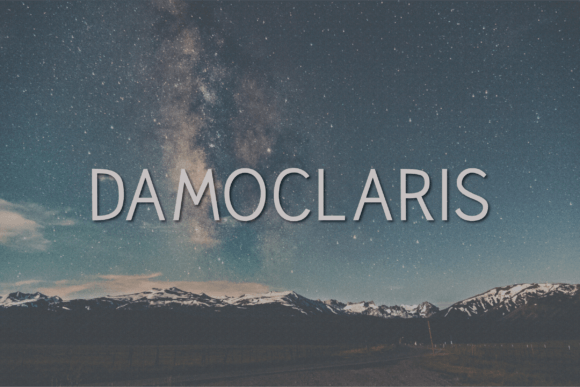
Unleash Your Creativity with Damoclaris Font: The Epitome of Contemporary Elegance
In the realm of typography, few fonts have managed to capture the essence of sophistication and style as effectively as Damoclaris. This sans serif typeface is a masterclass in modern elegance, boasting a streamlined package that comprises an array of upper-case characters, numerals from 0-9, and an extensive collection of punctuation symbols. Whether you’re a designer, artist, or simply someone who appreciates the art of typography, Damoclaris is a font that is sure to captivate and inspire.
Key Features of Damoclaris Font
- Upper-case characters: Damoclaris features a comprehensive set of upper-case characters, each carefully crafted to exude a sense of sophistication and refinement.
- Numerals and punctuation symbols: The font includes numerals from 0-9 and an extensive collection of punctuation symbols, ensuring that you have everything you need to create stunning text-based designs.
- Sans serif design: Damoclaris boasts a sleek and modern sans serif design, making it perfect for a wide range of applications, from print media to digital platforms.
- Versatility: One of the standout features of Damoclaris is its versatility. The font adapts effortlessly to various design contexts, making it an excellent choice for logos, invitations, quotes, advertisements, and more.
Exploring the Design Possibilities with Damoclaris
Damoclaris is a font that lends itself to a multitude of design applications. Its versatility and elegance make it an excellent choice for various projects, including:
- Logos: Use Damoclaris to create stunning logos that exude sophistication and style.
- Weddings and invitations: Add a touch of elegance to your wedding invitations, save-the-date cards, and other stationery with Damoclaris.
- Quotes and advertisements: Make your quotes and advertisements stand out with Damoclaris. The font’s modern design and effortless flow make it perfect for creating eye-catching text-based designs.
- Print media: Damoclaris is ideal for print media, adding a touch of refinement to magazines, brochures, and other publications.
Tips for Working with Damoclaris
To get the most out of Damoclaris, here are a few typography tips to keep in mind:
- Experiment with font sizes: Damoclaris looks great in various font sizes. Experiment with different sizes to find the perfect balance for your design.
- Play with line spacing: Adjusting the line spacing can greatly impact the overall flow and feel of your text. Experiment with different line spacing settings to find the perfect fit.
- Combine with other fonts: Don’t be afraid to combine Damoclaris with other fonts to create a unique and visually appealing design.
The Benefits of Using Damoclaris
So why choose Damoclaris over other fonts? Here are just a few benefits of using this stunning sans serif typeface:
- Unique and distinctive: Damoclaris is a font that stands out from the crowd. Its modern design and elegant flow make it a great choice for designers looking to create something unique.
- Highly versatile: Damoclaris adapts effortlessly to various design contexts, making it an excellent choice for a wide range of projects.
- Easy to read: Despite its elegant design, Damoclaris is highly legible, making it perfect for body text and other applications where readability is key.
Exploring the World of Damoclaris
Damoclaris is more than just a font – it’s a world of creative possibilities waiting to be explored. Whether you’re a seasoned designer or just starting out, Damoclaris invites you to push the boundaries of typography and design.
So why wait? Dive into the world of Damoclaris today and discover a font that will take your designs to the next level. With its stunning sans serif design, versatility, and elegance, Damoclaris is sure to become a favorite in your typography arsenal.
In conclusion, Damoclaris is a font that embodies the very essence of contemporary elegance. Its sleek sans serif design, versatility, and extensive character set make it an excellent choice for a wide range of design applications. Whether you’re looking to create stunning logos, elegant invitations, or eye-catching advertisements, Damoclaris is the perfect tool for the job.
So why not unleash your creativity with Damoclaris today? With its effortless flow, modern design, and highly legible characters, this font is sure to take your designs to new heights.